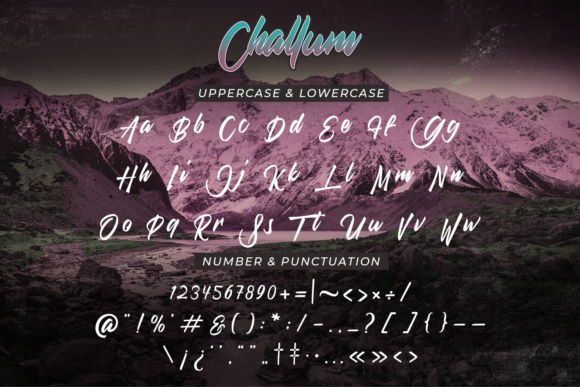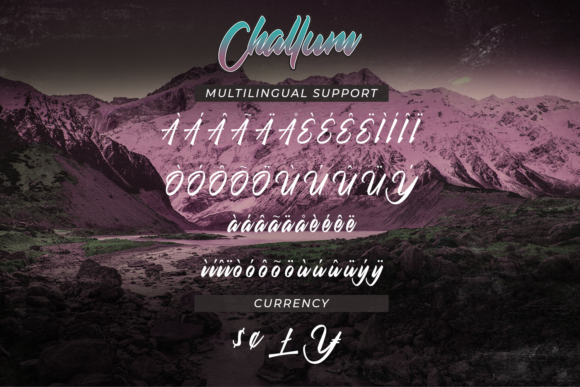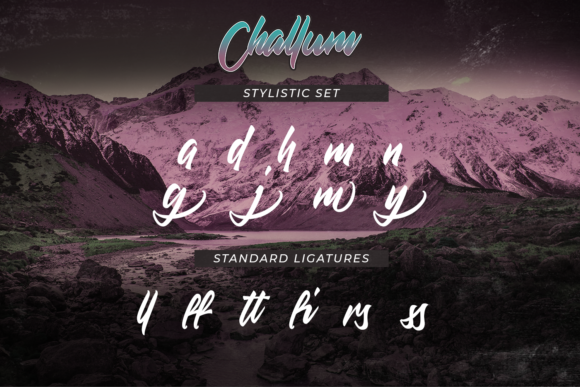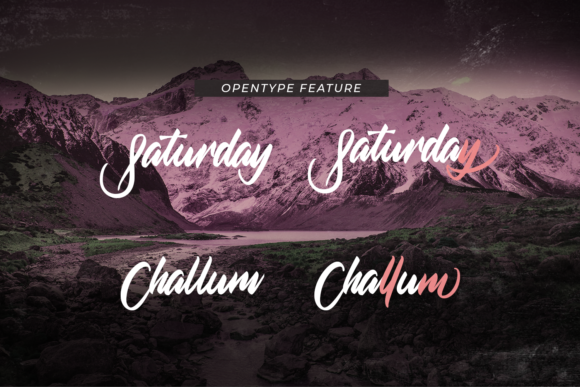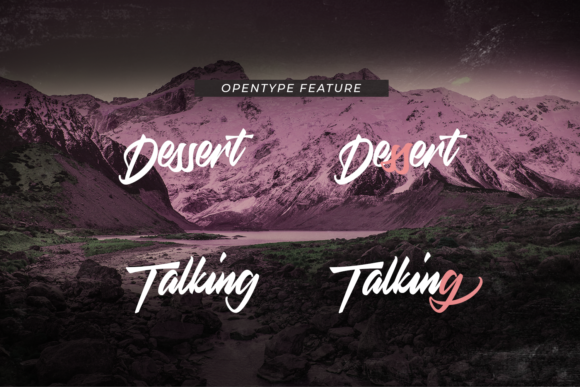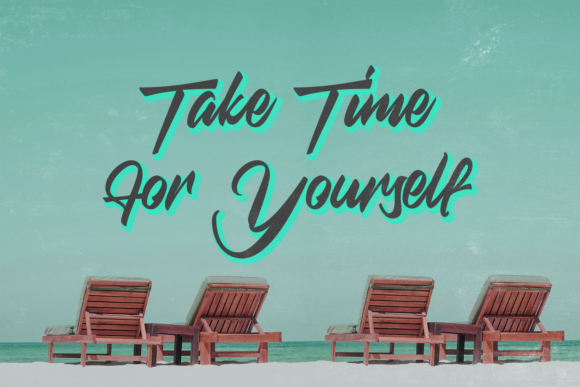
Introducing Challum Font: Elevate Your Designs with a Cursive and Bold Handwritten Style
In the world of typography, fonts play a crucial role in conveying the tone and personality of a design. For designers and crafters looking to add a touch of style and sophistication to their projects, Challum Font is an excellent choice. This cursive and bold handwritten font is crafted to give your headlines and logotype projects a confident and dynamic look that’s sure to leave a lasting impression.
What is Challum Font?
Challum Font is a unique and stylish typeface that combines the elegance of cursive writing with the boldness of a handwritten font. Its strong and confident appearance makes it perfect for designs that require a touch of personality and flair. Whether you’re working on a logo, headline, or any other design project, Challum Font is sure to add a nostalgic character that sets your work apart.
Key Features of Challum Font
- Cursive and Bold Handwritten Style: Challum Font boasts a beautiful cursive and bold handwritten style that’s perfect for creating eye-catching headlines and logotypes.
- Strong and Confident Appearance: The font’s strong and confident appearance makes it ideal for designs that require a sense of authority and personality.
- Nostalgic Character: Challum Font has a unique nostalgic character that adds a touch of warmth and personality to your designs.
- Versatile: This font is versatile and can be used for a wide range of design projects, from logos and headlines to posters and packaging.
Benefits of Using Challum Font
Using Challum Font in your design projects offers numerous benefits, including:
- Unique and Eye-Catching Designs: Challum Font helps you create unique and eye-catching designs that stand out from the crowd.
- Enhanced Brand Identity: The font’s strong and confident appearance can help enhance your brand identity and create a lasting impression on your audience.
- Easy to Read: Despite its bold and cursive style, Challum Font is easy to read, making it perfect for designs that require a clear and concise message.
Design Tips for Using Challum Font
To get the most out of Challum Font, here are some design tips to keep in mind:
- Use it for Headlines and Logotypes: Challum Font is perfect for headlines and logotypes, where its bold and cursive style can make a lasting impression.
- Pair it with Simple Fonts: Pair Challum Font with simple fonts to create a beautiful contrast and add visual interest to your designs.
- Experiment with Colors: Don’t be afraid to experiment with different colors to find the perfect combination that complements your design.
Who Can Benefit from Challum Font?
Challum Font is perfect for designers, crafters, and businesses looking to add a touch of style and sophistication to their designs. This includes:
- Graphic Designers: Graphic designers can use Challum Font to create eye-catching logos, headlines, and posters.
- Crafters: Crafters can use Challum Font to add a personal touch to their handmade projects, such as cards, scrapbook pages, and DIY crafts.
- Businesses: Businesses can use Challum Font to create a unique and memorable brand identity that sets them apart from their competitors.
In conclusion, Challum Font is a versatile and stylish typeface that’s perfect for designers, crafters, and businesses looking to add a touch of personality and flair to their designs. Its cursive and bold handwritten style, strong and confident appearance, and nostalgic character make it an excellent choice for a wide range of design projects. Whether you’re working on a logo, headline, or any other design project, Challum Font is sure to elevate your designs and leave a lasting impression.